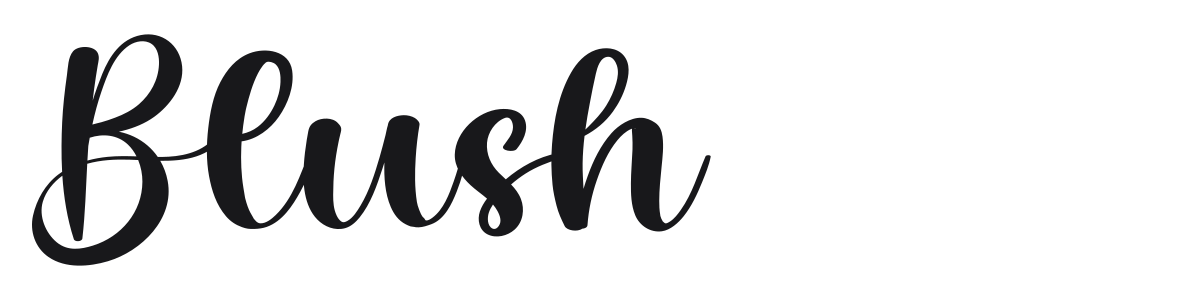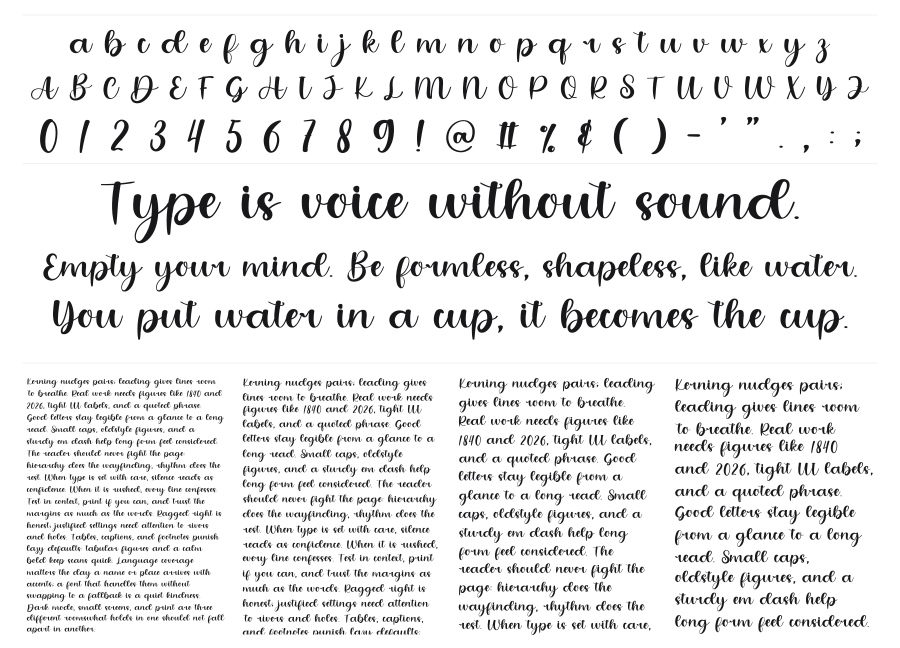
Blush
Blush is a bold casual script with a lively bouncing baseline and generous calligraphic swashes. The thick-to-thin stroke contrast gives it handwritten warmth without feeling rigid, and the flowing connecting strokes carry real energy across a line. It reads confidently at display sizes and brings personality to logotypes, invitations, and lifestyle branding.